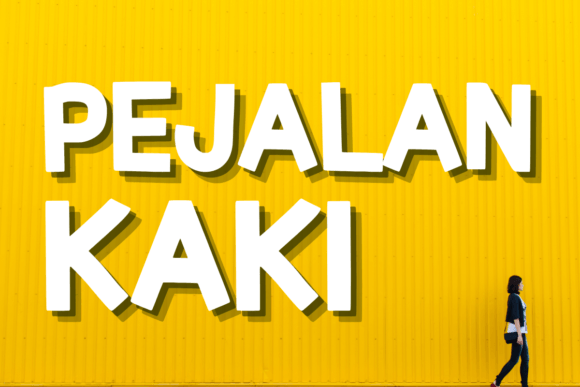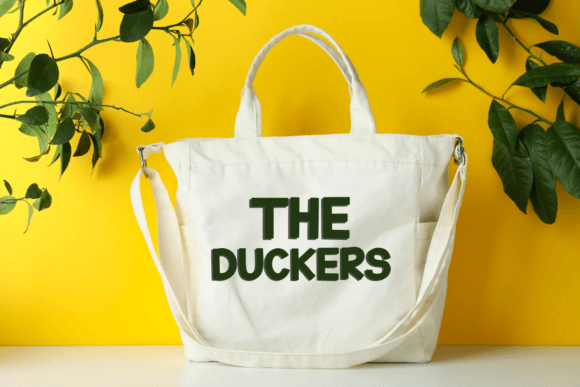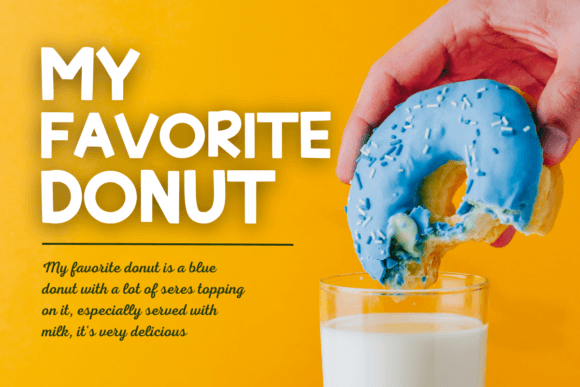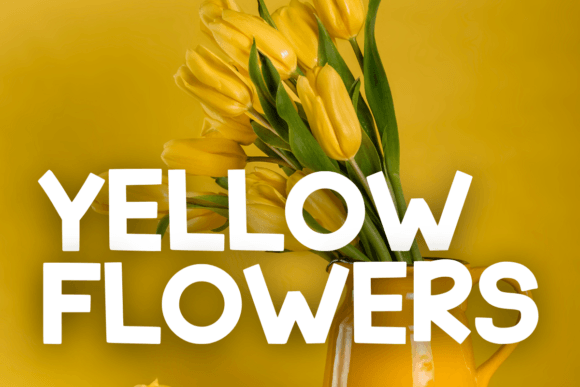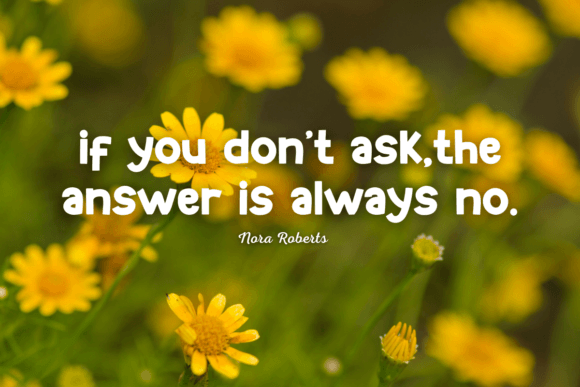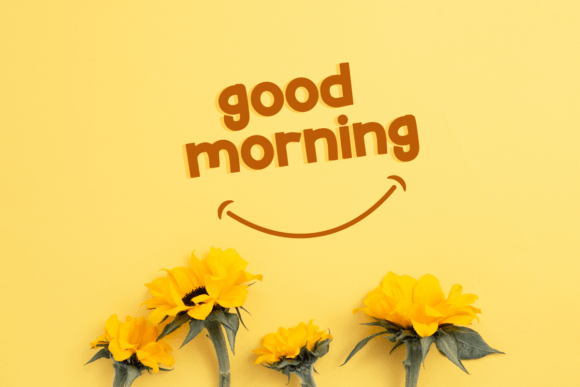
Introduction to Handuck Font
Have you ever been stuck on a design project, desperately searching for the perfect font to bring your creative vision to life? You’ve spent hours scrolling through font libraries, trying to find the one that captures the essence of your design. For designers, finding the right font can be a game-changer – it’s the difference between a bland, uninspired design and a beautiful, eye-catching one. And that’s exactly where the Handuck Font comes in – a cool, bold, yet whimsical handwritten font that’s sure to elevate your designs.
With its unique and beautiful style, the Handuck Font is a valuable resource for designers looking to add a touch of romance and elegance to their projects. Whether you’re working on a branding project, a wedding invitation, or a social media graphic, this font is sure to make a statement. And the best part? It’s available for free download, making it an accessible design resource for designers of all levels.
Key Features of Handuck Font
- Unique and creative design for various creative projects, such as logos, branding, and advertising materials.
- High-quality font with a transparent background, making it ideal for use on various design elements and backgrounds.
- Features a large character set, including uppercase and lowercase letters, numbers, and special characters, making it suitable for a wide range of creative projects.
- Designed with a high resolution of 300 DPI, ensuring that the font remains crisp and clear even at larger sizes.
- Perfect for designers looking for a unique and creative font to add a personal touch to their designs.
Honest Review: Handuck Font
As a designer, I’m always on the lookout for high-quality design resources to elevate my creative projects. Recently, I stumbled upon the Handuck Font, and I’m excited to share my honest review.
- ✨ The Handuck Font is incredibly versatile, with a wide range of applications from logos to typography.
- ✨ The font’s sleek and modern design makes it a great choice for any creative project.
- ✨ The font also features a transparent background, making it easy to use in any design scenario.
- ⚠️ The font may not be the best choice for projects requiring a more traditional or vintage aesthetic.
- ⚠️ Some users may find the font’s modern design to be a bit too trendy, potentially limiting its long-term appeal.
Overall, I’m impressed with the Handuck Font’s quality and versatility. While it may not be the perfect fit for every project, it’s a valuable addition to any designer’s toolkit. I’d definitely recommend it for designers looking for a high-quality, free download for their creative projects.
Tips for Getting the Most Out of Handuck Font
For the best results, use the Handuck Font in a design resource that allows for high-quality font rendering. You can also experiment with different font sizes, colors, and styles to find the perfect look for your creative project.
The Handuck Font is ideal for creative projects that require a unique and stylish font. Some common use cases include designing logos, business cards, and social media graphics. With its high-quality design and free download option, the Handuck Font is a valuable design resource for any creative project.
No, the Handuck Font is a solid font and does not have a transparent background. However, you can use it in conjunction with a transparent background image or a design element to create a unique and visually appealing effect in your creative project.